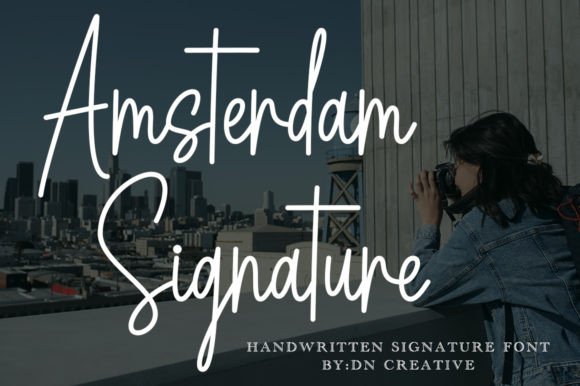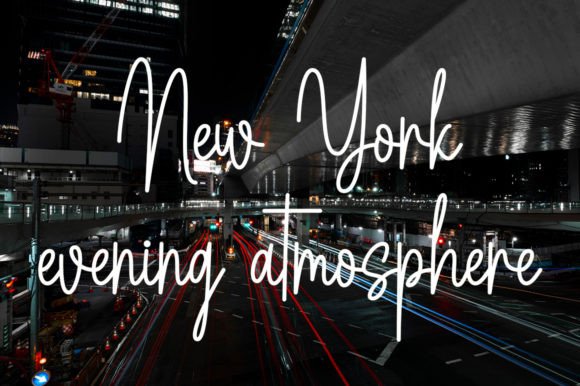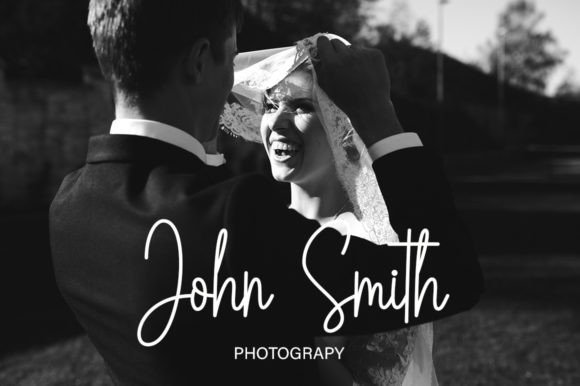
About Amsterdam Signature
Amsterdam Signature is a modern and monoline script font that is accurately crafted and remarkably detailed. Whatever the topic, this font will be a wonderful asset to your font library, as it has the potential to refine any creation. This font is PUA encoded, which means you can access all glyphs and swashes with ease!